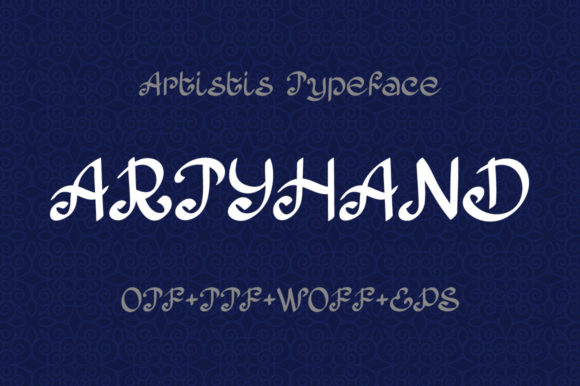
The Ultimate Guide to Artyhand Font: Elevate Your Designs with Whimsy and Style
I’ll never forget the time I was working on a project for a client who wanted a font that was both playful and elegant. I had spent hours scouring the internet for the perfect match, but nothing seemed quite right. That was until I stumbled upon Artyhand Font. With its whimsical script style and relaxed theme, it was love at first sight! In this article, I’ll share my experience with Artyhand Font, its features, and how to make the most of it in your designs.
An Honest Review of Artyhand Font
What I Love About Artyhand Font
• ✨ Unique and eye-catching design that’s perfect for creative projects
• ✅ Highly versatile and can be used for a wide range of topics and themes
• 💫 Features a lovely, flowing script style that’s easy on the eyes
• 🎨 Comes with a range of OpenType features, glyphs, and stylistic alternates to enhance your designs
While Artyhand Font is an amazing addition to any font library, there are a few things to keep in mind:
• 🤔 May not be suitable for very formal or corporate designs, as it has a distinctly playful vibe
• ⚠️ Some users may find the font a bit too ornate or busy for certain applications
How to Use Artyhand Font: A Practical Guide
3. Experiment with OpenType features, such as ligatures and stylistic alternates, to add visual interest to your design
The Story Behind Artyhand Font
Artyhand Font was designed with the creative hobbyist in mind. Its designer wanted to create a font that was both fun and elegant, perfect for crafters, designers, and artists who want to add a personal touch to their work. With its unique blend of whimsy and sophistication, Artyhand Font is sure to become a favorite in your font library.
What type of designs is Artyhand Font best suited for? Artyhand Font is perfect for creative projects, such as invitations, party decorations, and artisanal branding. It’s also great for personal projects, like journals and planners.
Does Artyhand Font come with OpenType features? Yes, Artyhand Font features a range of OpenType features, including ligatures, stylistic alternates, and glyphs. These can be accessed in compatible design software, such as Adobe Photoshop and Illustrator.
Is Artyhand Font suitable for body text? While Artyhand Font is beautiful for headings and titles, it may not be the best choice for body text. Its ornate style can be difficult to read in large blocks of text.